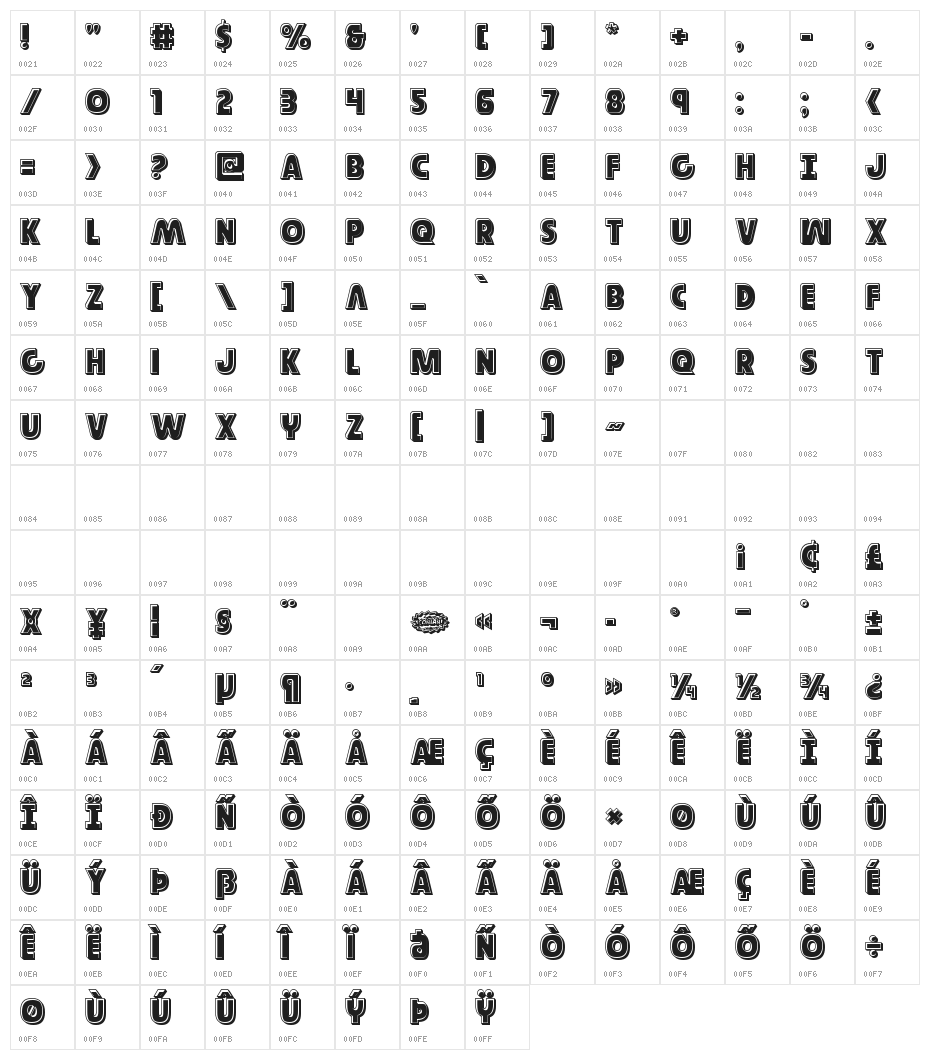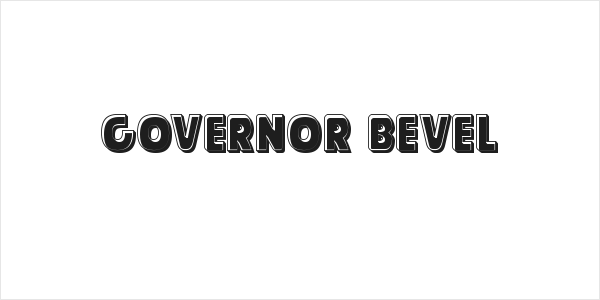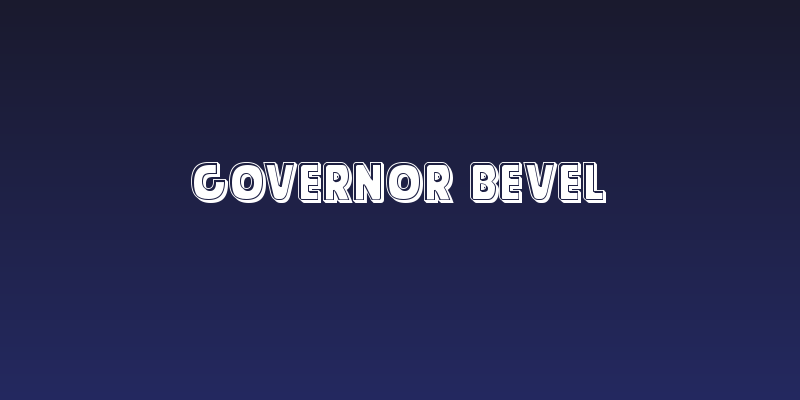
Governor Bevel Font
Governor Bevel Description
This font features a bold, three-dimensional appearance with a beveled edge that gives it a striking, impactful look. The characters are uppercase and have a strong, geometric structure, making them highly legible and attention-grabbing. The font's design includes a shadow effect that enhances its depth and dimensionality, adding a sense of movement and dynamism. The spacing between characters is consistent, ensuring readability while maintaining its bold presence. This font is ideal for creating a powerful visual impact in any design project.
Proposed ProjectsIdeal for headlines, posters, logos, and any design needing a strong visual impact.